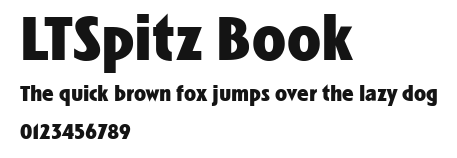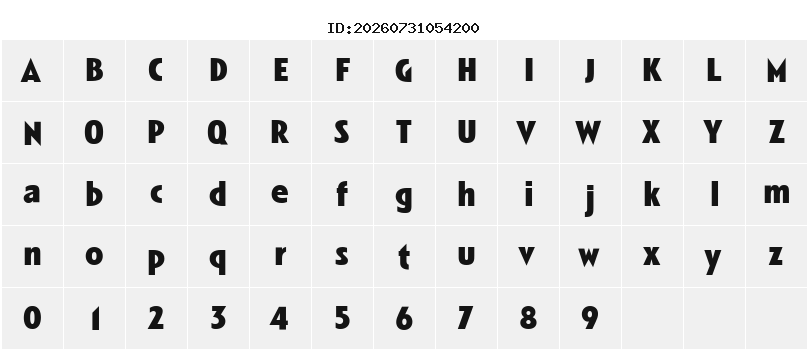
• Font Name: LTSpitz Book
• Full Font Name: Linotype Spitz Black
LTSpitz Book.ttf is a modern, elegant sans-serif font designed for ultimate readability and visual harmony. Perfect for branding, headlines, web design, and print materials.